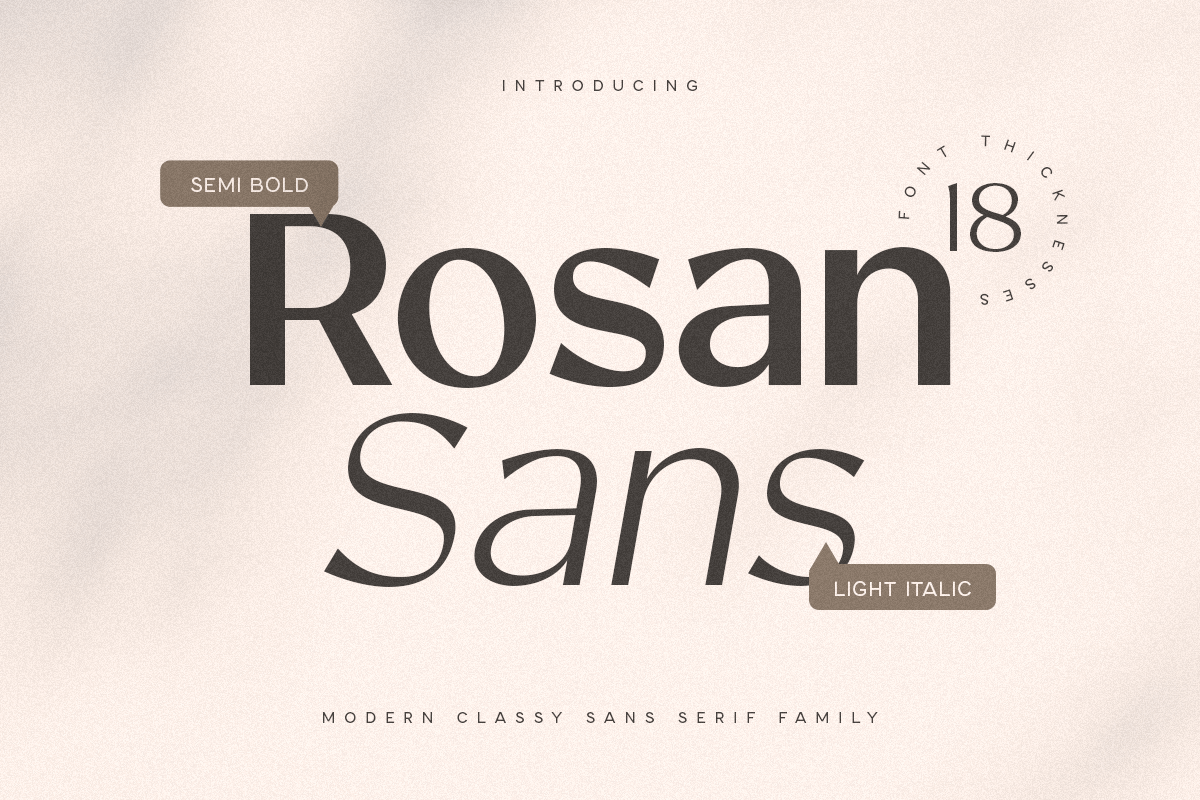
Rosan Sans
-Classy Sans Serif Font
An exclusive font tailored for sophisticated and modern branding, offering an elegant aesthetic to enhance your brand's allure. This font is designed to elevate the value of your brand. Whether you're a designer or a product owner seeking stylish and modern solutions, this font provides the perfect answer.